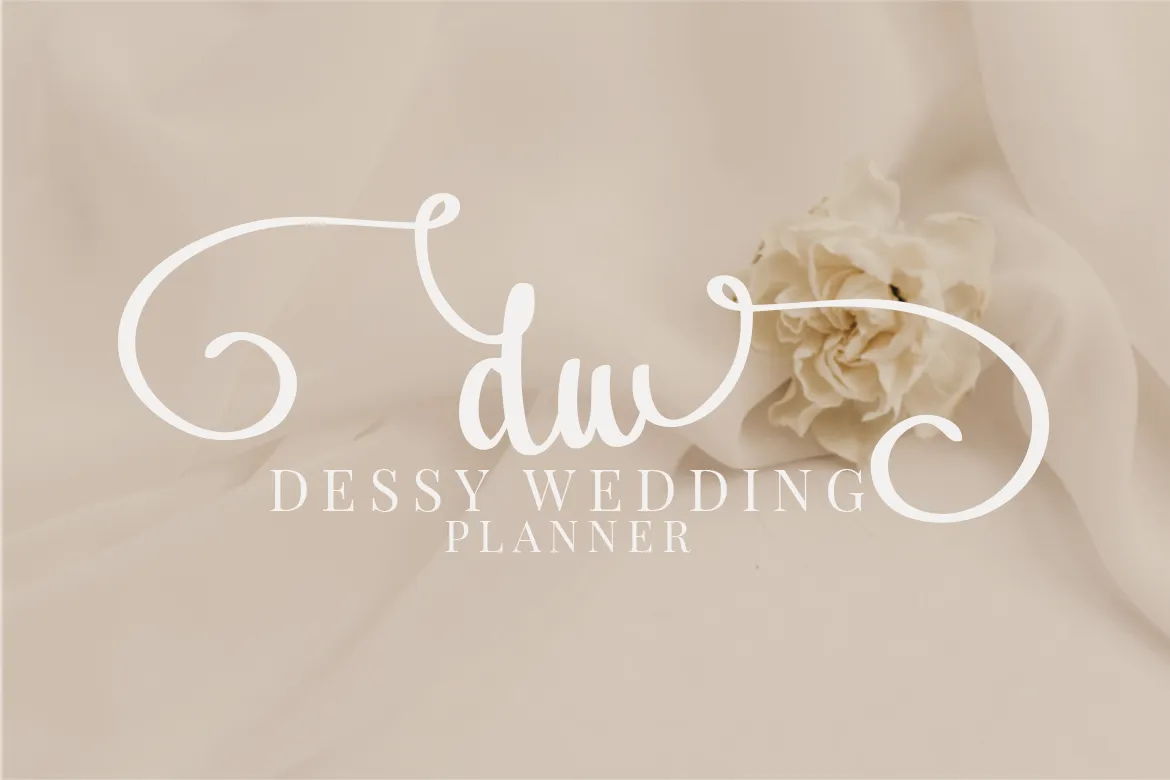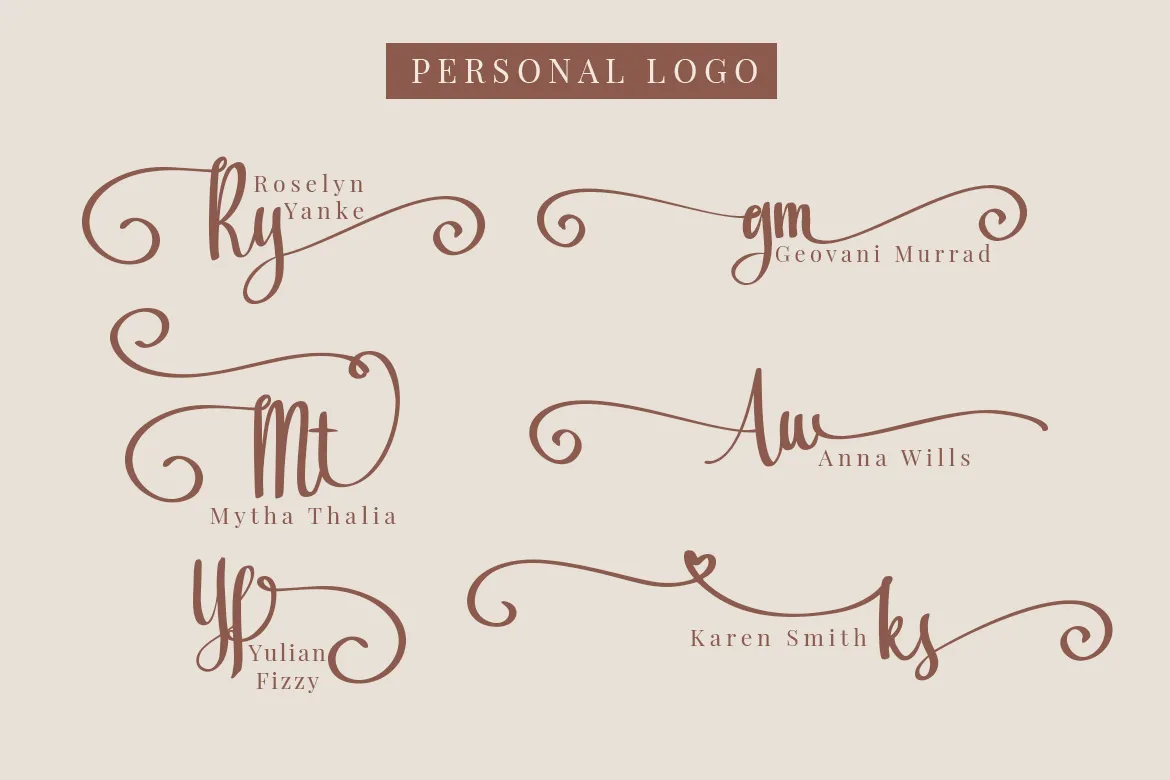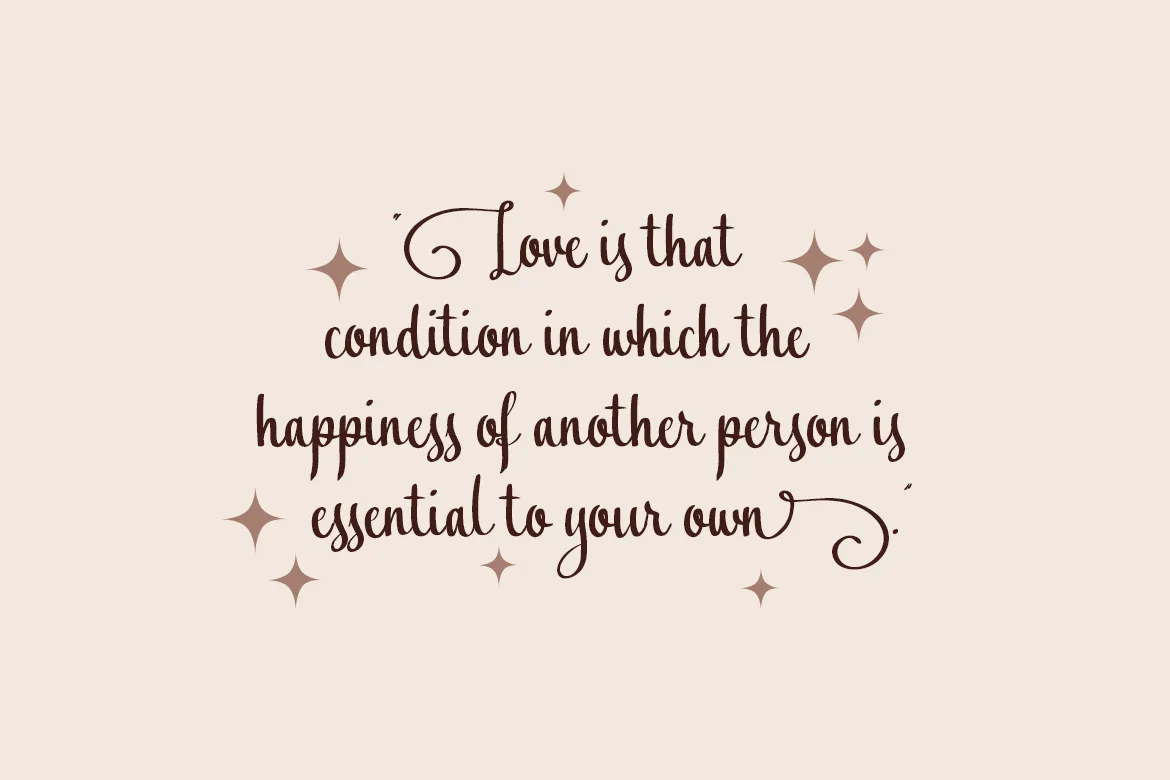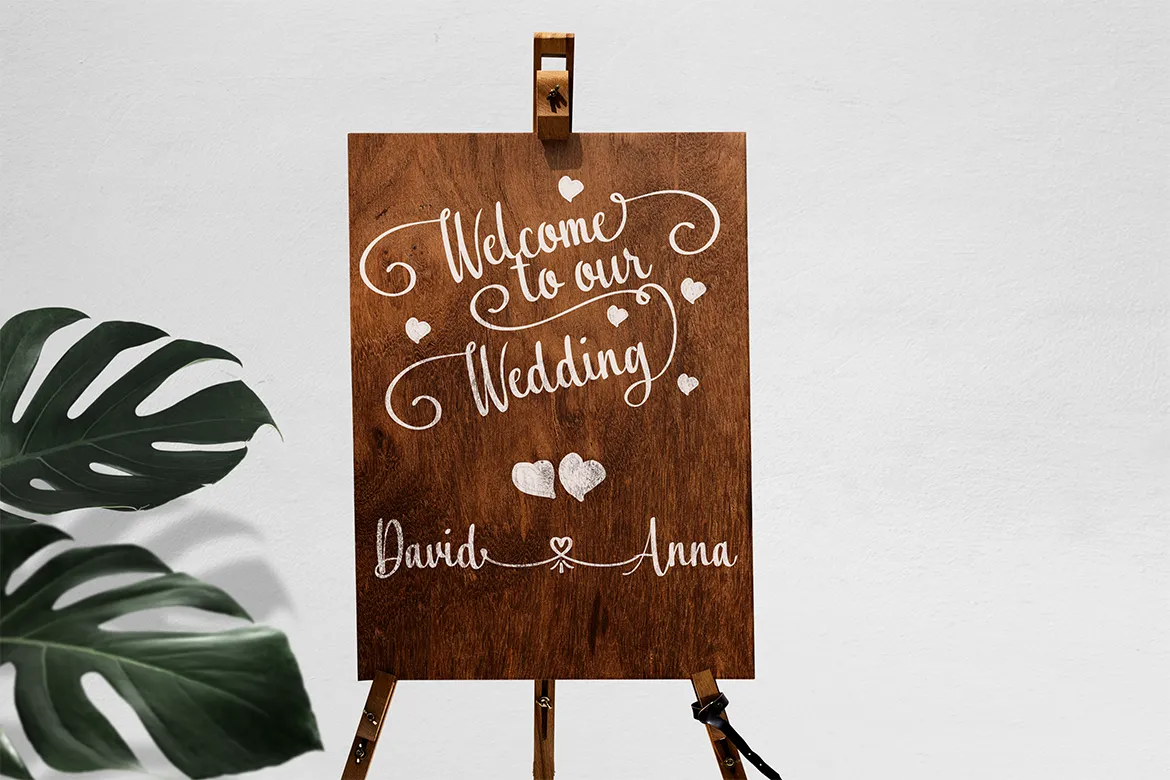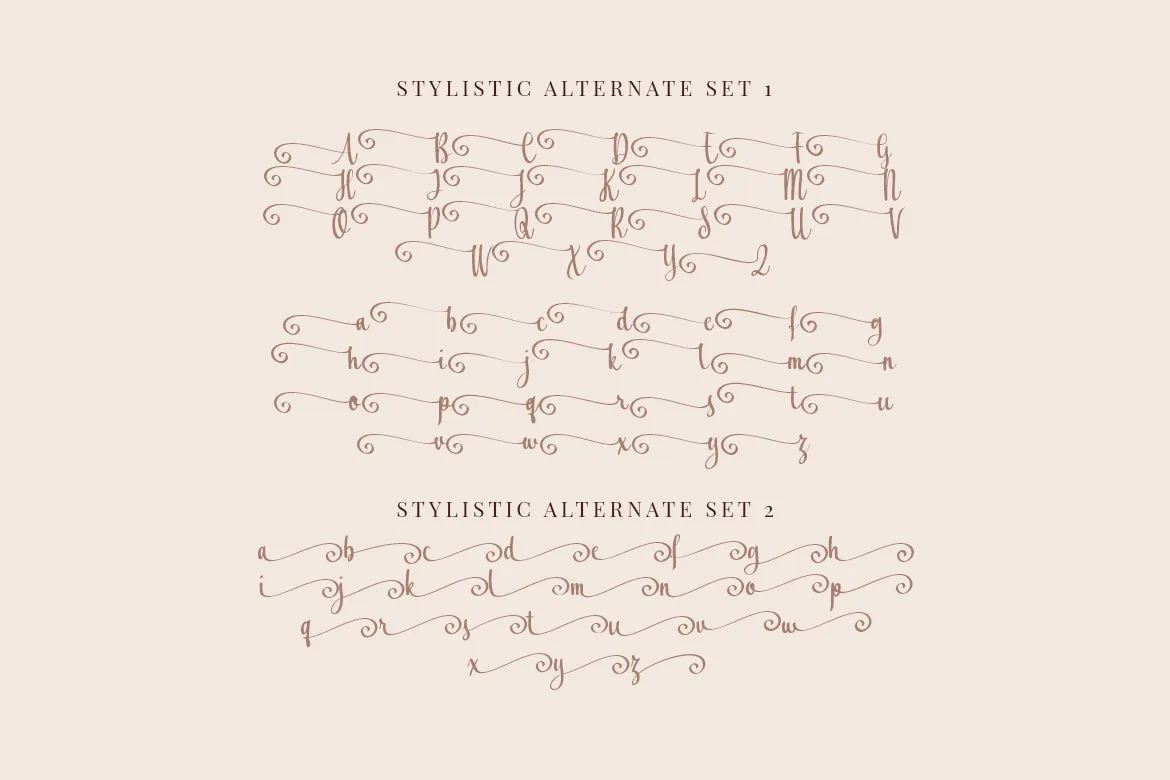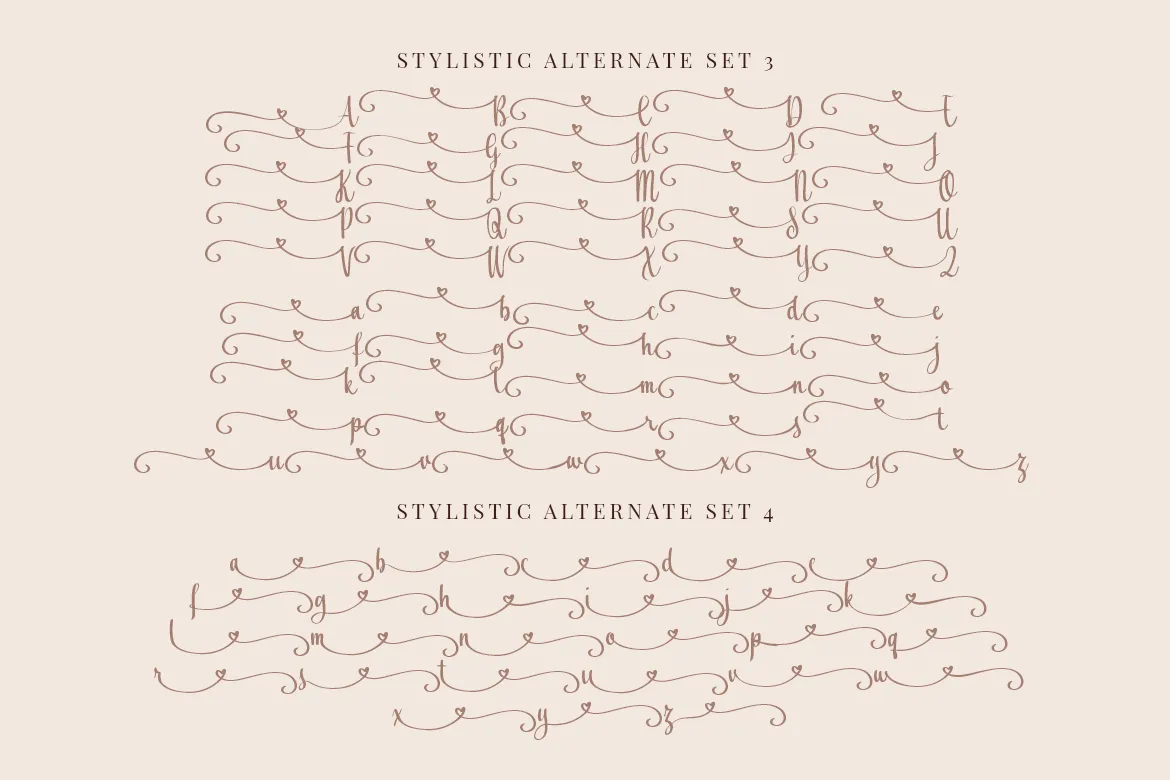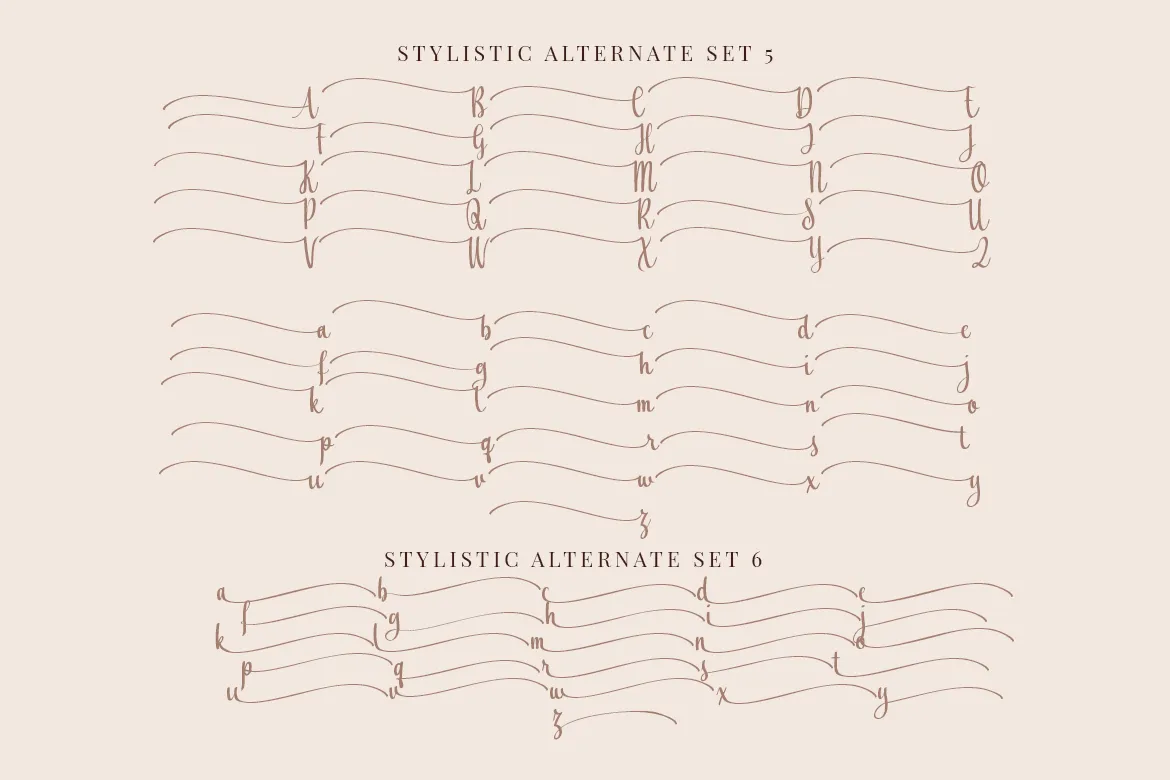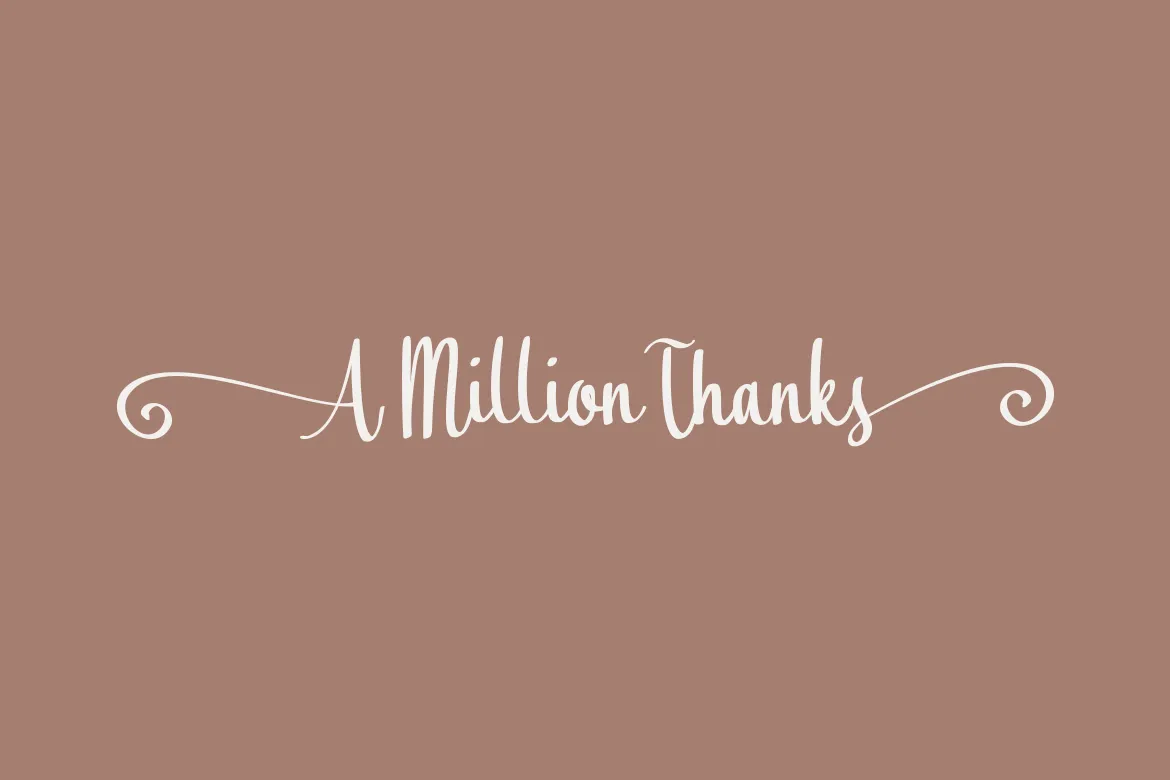
Agnes Michael is a beautiful script font with a romantic and elegant feel. Perfect for wedding invitations, Valentine’s Day cards, love letters, and the like. Or anything that wants to convey warmth and just the right amount of whimsy.
Featuring 600+ Glyphs, numerous sets of stylistic alternate, elegant swashes and powerful ligatures, Agnes Michael will bring an extra touch of luxury to your signs, posters, invitations, and other print media.
Agnes Michael has enough personality to make a statement that could steals the show. It’s always ready to support your designs with beauty, elegance, and romance.